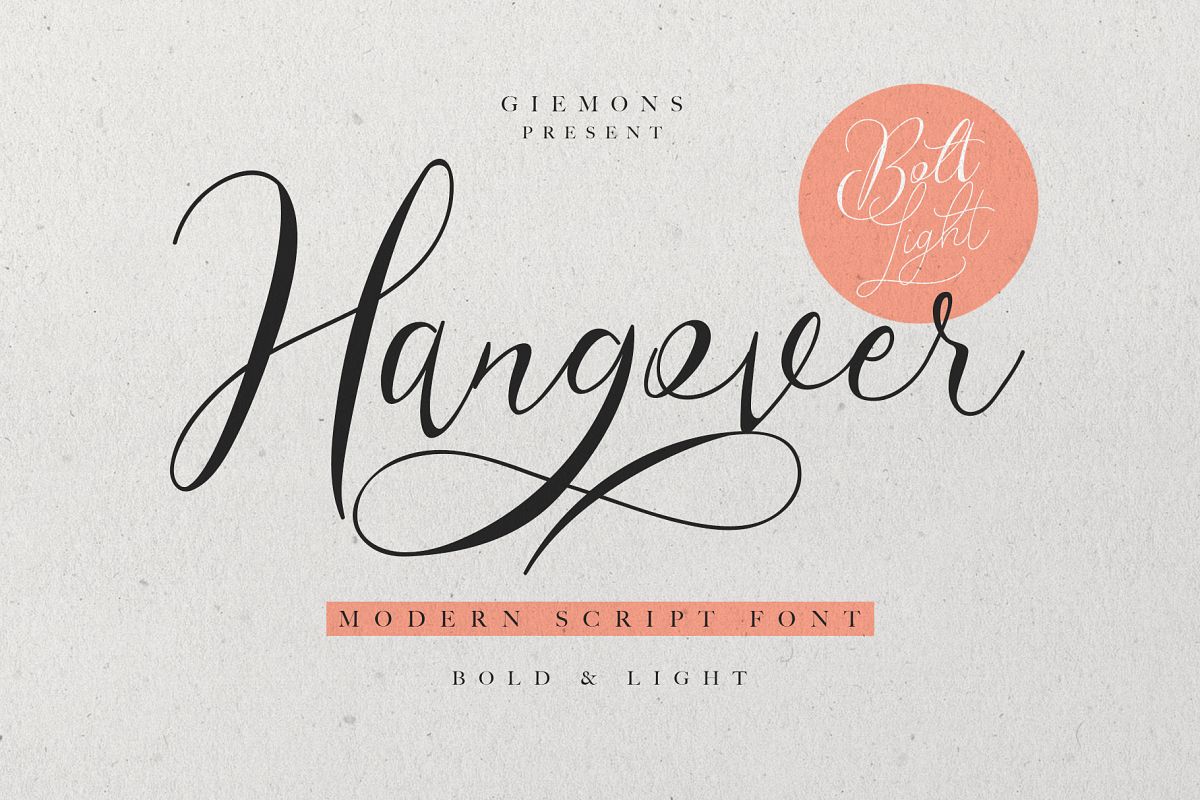
Hangover Script - 2 Font
a Hangover Script Family is modern lettering font and also has cute display font. This font have 2 version BOLD & LIGHT. Can make it easier to convey the message in your design. Use for awesome wedding card, birthday card, labeling, clothing, movie sceen, poster, movie title, gigs, album covers, logos, and much more.Include :
• Uppercases & Lowercases
• Numerals & Punctuations
• Lowercase Alternates (a-z)
• Lowercase Final Form (a-z)
• Lowercase Swash (g h j k m n r y)
• Uppercase Alternates (E G H)
• Multilanguage Support